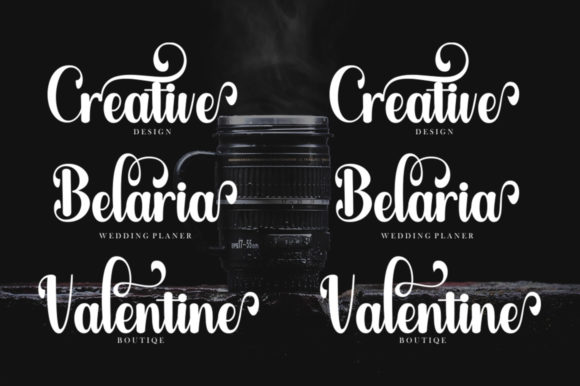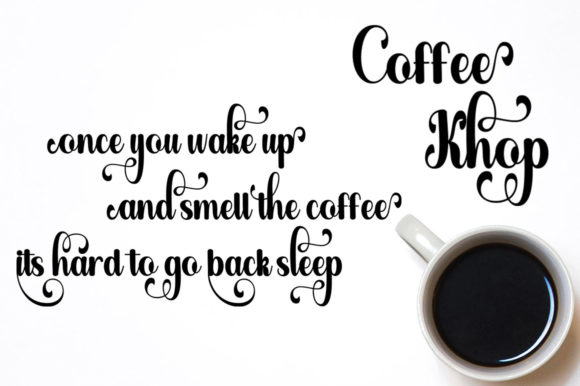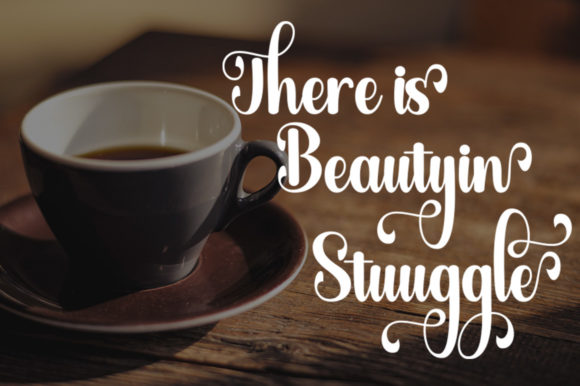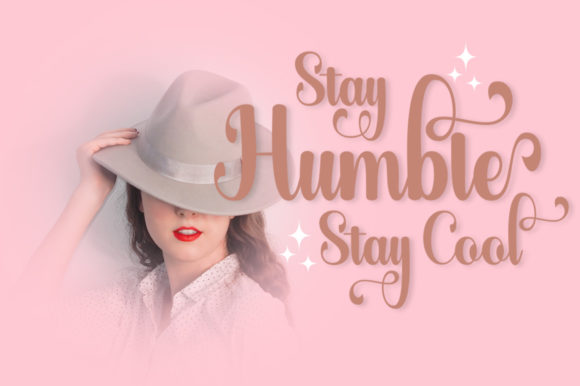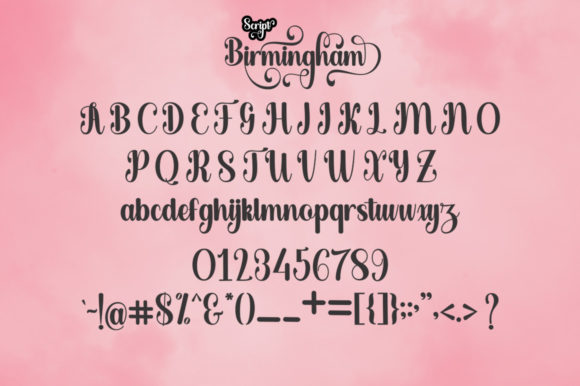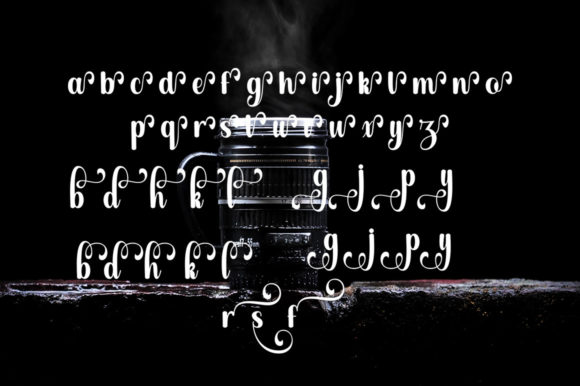
Birmingham Script Font: Elevate Your Crafting Ideas with Sophistication and Charm
Are you a designer or crafter looking for a font that can add a touch of sophistication and elegance to your projects? Look no further than the Birmingham Script Font. This beautiful handwritten font is perfect for delivering any message with confidence, authenticity, and charm. In this article, we’ll take a closer look at the Birmingham Script Font and explore its features, benefits, and uses.
What is Birmingham Script Font?
Birmingham Script Font is a carefully crafted handwritten font that’s designed to add a touch of sophistication and elegance to any project. Its unique and flowing script style makes it perfect for a wide range of crafting ideas, from cards and invitations to branding, labels, and more. Whether you’re a professional designer or a DIY crafter, this font is sure to become a favorite in your collection.
Key Features of Birmingham Script Font
- Sophisticated Handwritten Style: Birmingham Script Font features a beautiful, handwritten script style that’s perfect for adding a personal touch to your projects.
- PUA Encoded: This font is PUA (Private Use Area) encoded, which means you can access all glyphs and swashes with ease. This makes it easy to customize your text and add unique flourishes to your designs.
- Confident and Authentic: The Birmingham Script Font is designed to deliver any message with confidence, authenticity, and charm. Its sophisticated style makes it perfect for a wide range of projects, from formal invitations to business branding.
- Versatile: This font is perfect for a wide range of crafting ideas, including cards, invitations, branding, labels, and more.
Benefits of Using Birmingham Script Font
So why choose the Birmingham Script Font for your next project? Here are just a few benefits of using this beautiful font:
- Adds a Touch of Sophistication: The Birmingham Script Font adds a touch of sophistication and elegance to any project, making it perfect for formal invitations, business branding, and more.
- Easy to Use: This font is PUA encoded, making it easy to access all glyphs and swashes. This means you can customize your text with ease and add unique flourishes to your designs.
- Versatile: The Birmingham Script Font is perfect for a wide range of crafting ideas, from cards and invitations to branding and labels.
- Unique and Eye-Catching: This font features a unique and flowing script style that’s sure to grab attention. Its sophisticated style makes it perfect for designers and crafters who want to create eye-catching projects.
Uses for Birmingham Script Font
So what can you use the Birmingham Script Font for? Here are just a few ideas to get you started:
- Cards and Invitations: This font is perfect for creating beautiful, handmade cards and invitations for special occasions.
- Branding and Packaging: The Birmingham Script Font is a great choice for business branding and packaging. Its sophisticated style makes it perfect for creating a professional and cohesive look.
- Labels and Tags: This font is also great for creating labels and tags for gifts, products, and more.
- Stationery and Journaling: The Birmingham Script Font is perfect for adding a touch of elegance to your stationery and journaling projects.
In conclusion, the Birmingham Script Font is a sophisticated handwritten font that’s perfect for designers and crafters who want to add a touch of elegance and sophistication to their projects. Its unique and flowing script style, PUA encoding, and versatile uses make it a great choice for a wide range of crafting ideas. Whether you’re creating cards, branding, labels, or more, this font is sure to become a favorite in your collection.